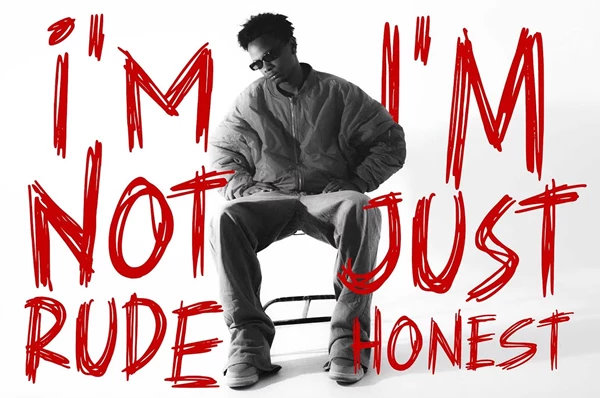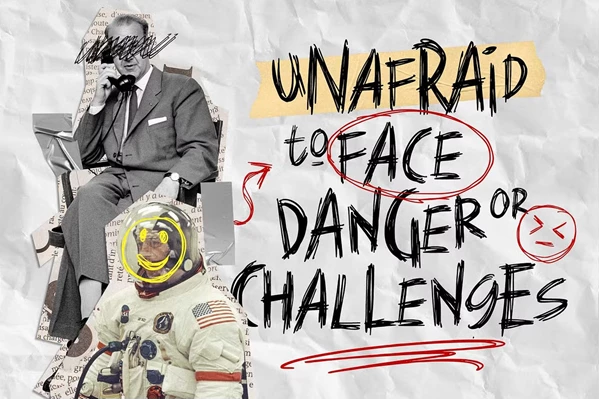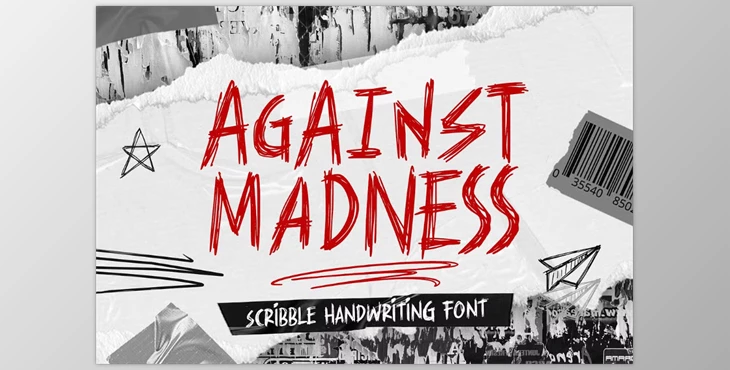
Against Madness - Scribble font:
Inject your designs with the striking emotion and raw energy of Against Madness font, which pours mountain emotions through its hand-drawn strokes. This wild typeface has been crafted for modern designs with a minimalist approach that wishes to stand out. With bold posters, unique pioneering brand identity, or eye-catching social media visuals, Against Madness will add artistic energy that breaks all rules.
Apart from the striking style, the font pack comes with memorable characters, a unique set of dingbats, and, best of all, Against Madness, with all of its adrenaline-fuelled strokes, will help you add to your arsenal.
- Includes Against Madness - Regular and other creative Dingbats.
- All-Caps.
- Complete with numbers, symbols, and punctuation.
- Support different languages for international projects.
- Design variety with style alternates.